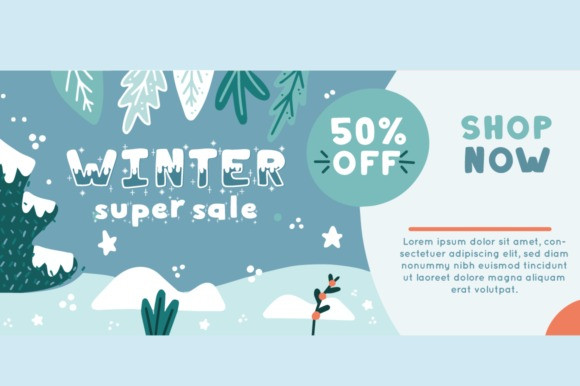
Winter Dairy Font
Winter Dairy Display Font is a fun, wintery and friendly display font. Whether you’re using it for crafts, digital design, presentations, or making greeting cards, this font has the potential to become your favorite go-to font, no matter the occasion!